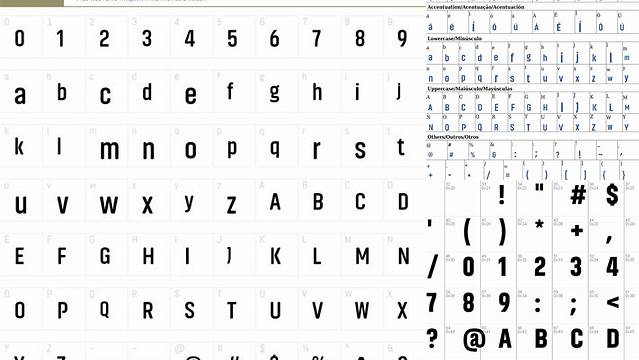
1. What is Akhand Soft Bold Font?
Akhand Soft Bold is more than just a typeface; it’s a statement. Combining the robustness of a bold font with softened edges, it offers a unique blend of power and approachability. Imagine a font that’s perfect for headlines, branding, and even body text – that’s Akhand Soft Bold for you. Its clean lines and rounded corners make it visually appealing and easy on the eyes, ensuring readability across various mediums. Whether you’re designing a website, creating marketing materials, or working on a personal project, this font can elevate your design game. It's designed to be versatile, fitting into both professional and creative contexts. Think about using it for logos, posters, and social media graphics. The possibilities are endless!
2. Why Choose Akhand Soft Bold?
So, why should you choose Akhand Soft Bold over the myriad of other fonts out there? Well, its unique character is a big draw. The balance between boldness and softness creates a distinctive look that can make your designs stand out. It’s not just about aesthetics, though. This font also offers excellent readability, ensuring that your message is clear and easily digestible. In a world where attention spans are shrinking, having a font that captures and holds attention is crucial. Furthermore, Akhand Soft Bold is often available in various weights and styles, giving you the flexibility to adapt it to different design needs. From light to extra bold, you can find the perfect variation to suit your project. Plus, its compatibility with various design software makes it a hassle-free choice.
3. The Versatility of Akhand Soft Bold Font
One of the greatest assets of Akhand Soft Bold Font is its sheer versatility. This font isn't just limited to one type of project; it shines across a multitude of applications. Consider using it for website headers to create a bold and inviting first impression. Its clean lines and soft edges make it highly readable, ensuring visitors can quickly grasp your message. For branding, Akhand Soft Bold can help establish a strong and memorable identity. Its unique character lends itself well to logos, business cards, and marketing materials. In print, it's equally effective. Think about using it for posters, flyers, and brochures. Its bold presence commands attention, while its soft edges prevent it from appearing too harsh. Even in digital publications like e-books and online magazines, Akhand Soft Bold maintains excellent readability, making it a reliable choice for extended text. Its adaptability ensures that your designs look polished and professional, regardless of the medium.
7. Using Akhand Soft Bold in Graphic Design
When it comes to using Akhand Soft Bold in graphic design, the possibilities are truly endless. This font shines in a variety of applications, from branding to web design and print materials. For logos, its bold and soft character can help create a memorable and approachable brand identity. Use it for headlines and taglines to make a strong statement. In web design, Akhand Soft Bold is perfect for headings, subheadings, and even body text. Its excellent readability ensures that your website visitors can easily consume your content. Pair it with a contrasting sans-serif font for a balanced and visually appealing look. For print materials like posters, flyers, and brochures, Akhand Soft Bold commands attention. Its bold presence makes it ideal for headlines and call-to-actions. Consider using it in different weights and styles to create visual hierarchy and add depth to your designs. Experiment with different colors and sizes to see what works best for your project. With its versatility and unique character, Akhand Soft Bold is a valuable addition to any graphic designer's toolkit.
8. Pairing Akhand Soft Bold with Other Fonts
The art of pairing Akhand Soft Bold with other fonts can significantly enhance the overall aesthetic of your designs. The key is to find fonts that complement its unique character without overpowering it. For a classic and sophisticated look, consider pairing Akhand Soft Bold with a clean and simple serif font like Merriweather or Times New Roman. The contrast between the bold, soft sans-serif and the traditional serif creates a balanced and visually appealing effect. If you're aiming for a more modern and minimalist design, try pairing Akhand Soft Bold with a lighter sans-serif font like Open Sans or Lato. The combination of the bold and light weights adds visual interest without sacrificing readability. Another option is to pair Akhand Soft Bold with a script font for a touch of elegance and personality. However, be careful not to overdo it, as too much script can make your designs look cluttered. Use the script font sparingly, such as for subheadings or decorative elements. Experiment with different font pairings to see what works best for your project. Consider the overall tone and message you want to convey, and choose fonts that align with your vision.
9. The Impact of Font Choice on Design
The impact of font choice on design cannot be overstated. Fonts are more than just letters; they are visual elements that communicate personality, tone, and message. A well-chosen font can elevate your design and make it more effective, while a poorly chosen font can detract from it. Consider the example of a legal document using a playful, rounded font – it would undermine the seriousness and credibility of the content. Similarly, a children's book using a formal, traditional font might not capture the attention of its young audience. Fonts evoke emotions and associations. Serif fonts, like Times New Roman, often convey a sense of tradition, authority, and sophistication. Sans-serif fonts, like Helvetica, tend to appear modern, clean, and approachable. Script fonts can add a touch of elegance, personality, and creativity. When choosing a font, consider your target audience, the message you want to convey, and the overall style of your design. Experiment with different fonts to see what works best. Pay attention to readability, legibility, and the overall visual impact. With careful consideration, you can harness the power of fonts to create designs that are both visually appealing and effective.